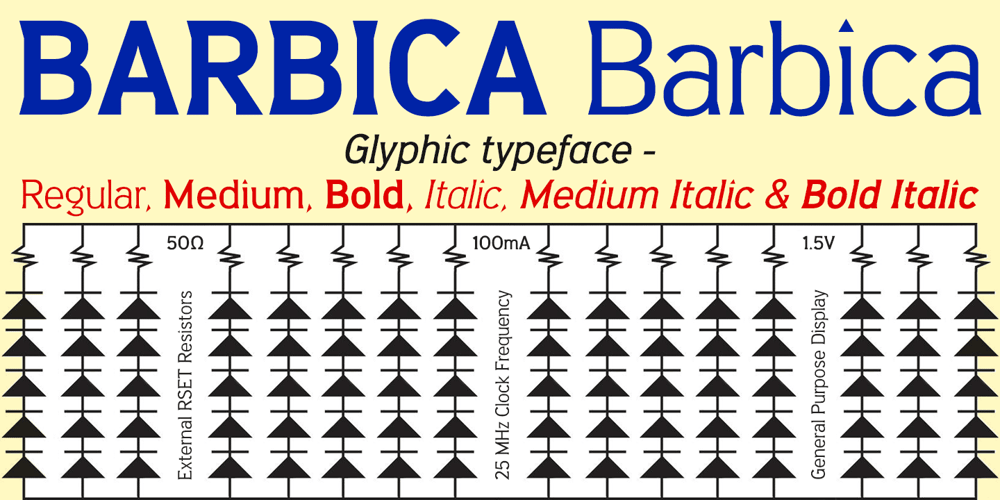
Barbica Font Family was designed by Keith Bates and published by K-Type. Barbica contains 6 styles and family package options. Barbica is a glyphic typeface with the clean feel of a sans. Angular flared terminals and vertical struts provide stroke contrast and definition without being overly obtrusive. Paradoxically, the typeface looks both contemporary and archaic. Six fonts for the price of one – Regular, Italic, Medium, Medium Italic, Bold and Bold Italic.